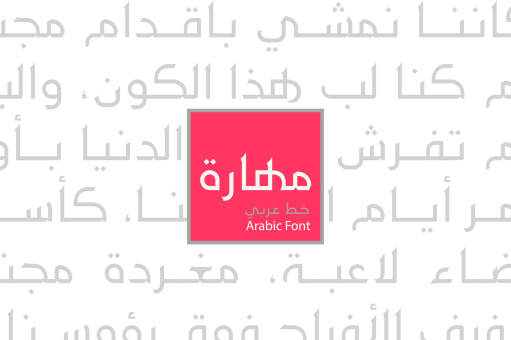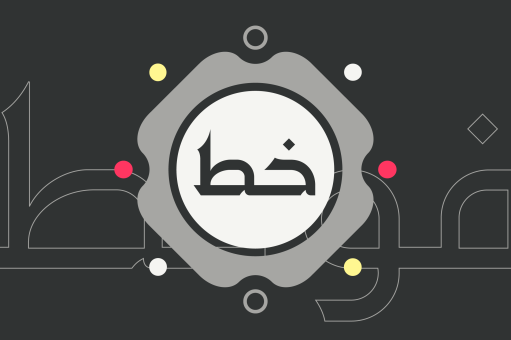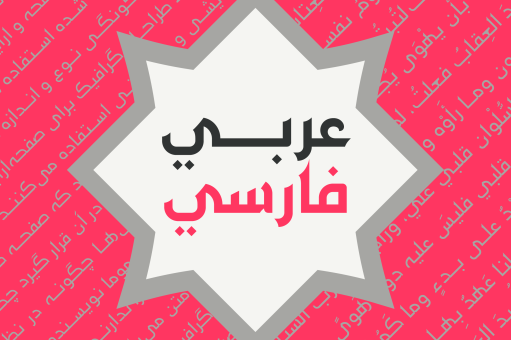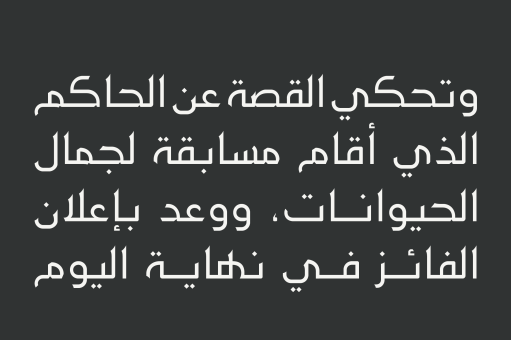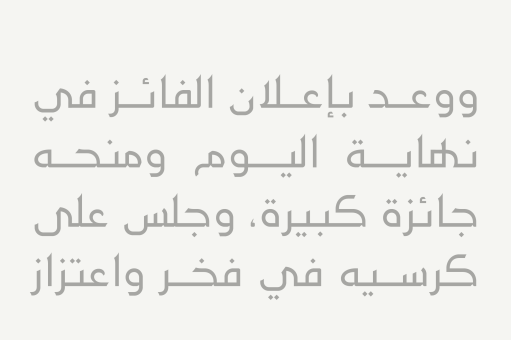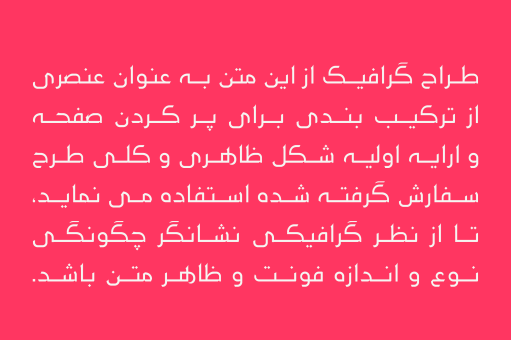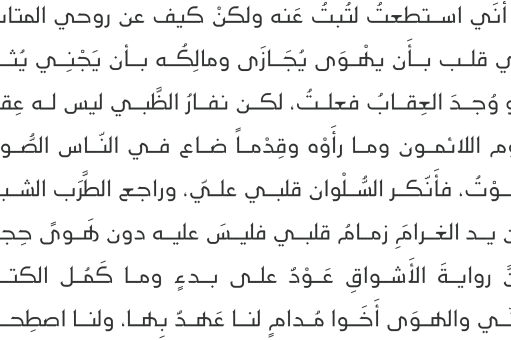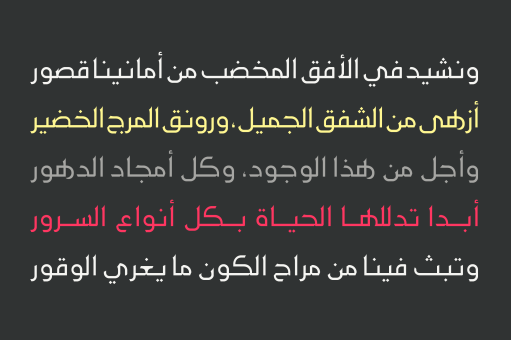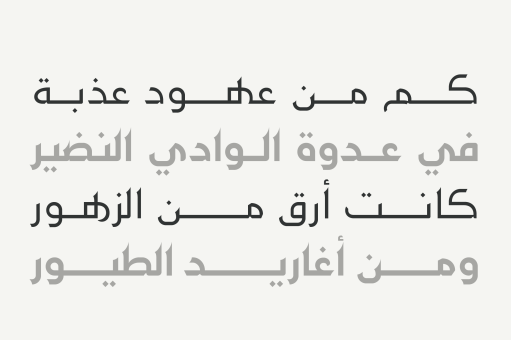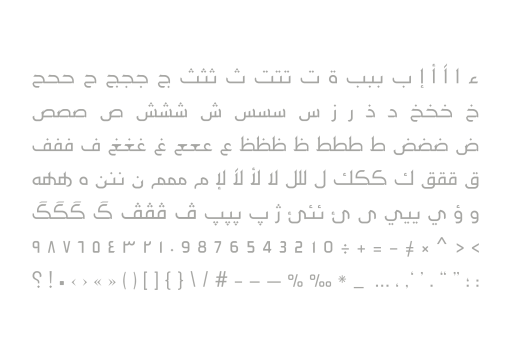
Maharah
Maharah is an Arabic typeface that combines authenticity with elegance and modernity. The word Maharah is the Arabic for Skill. The font suits both web design and print and it comes in two weights; regular and bold.